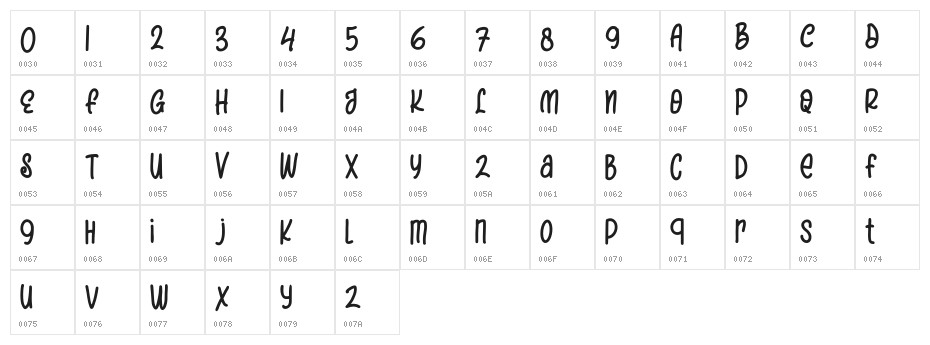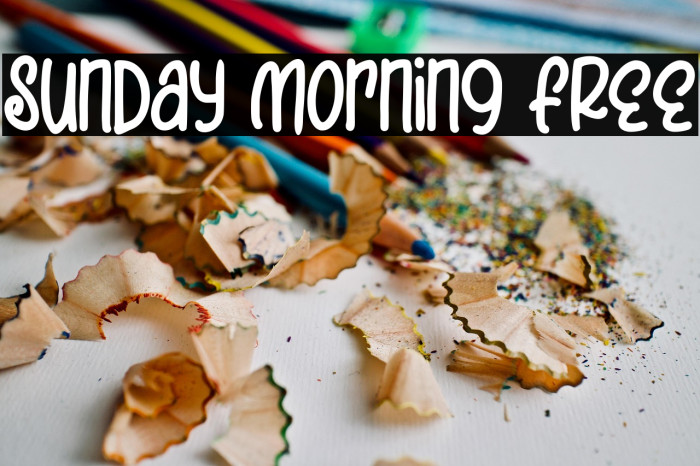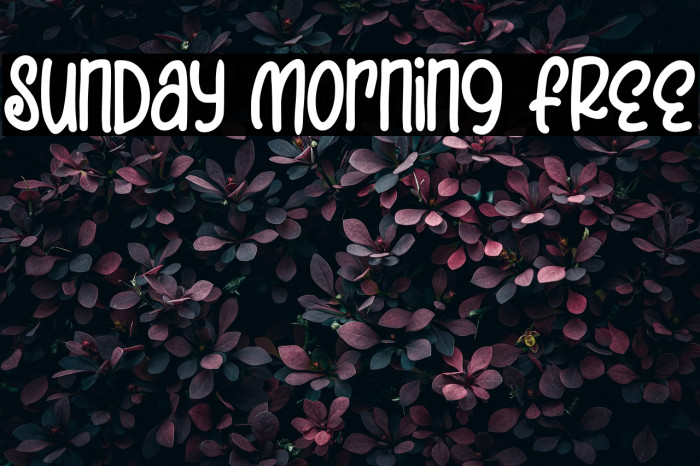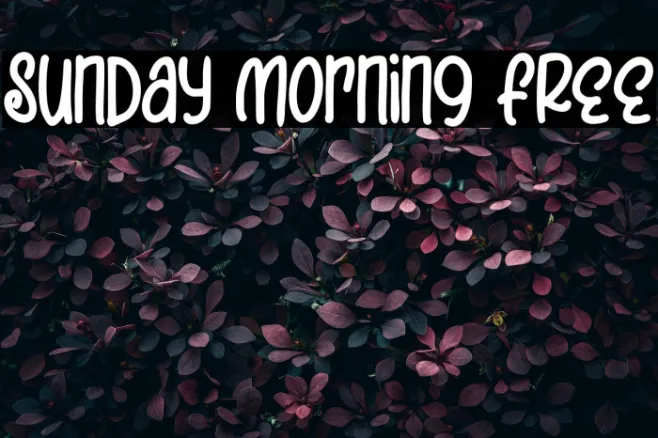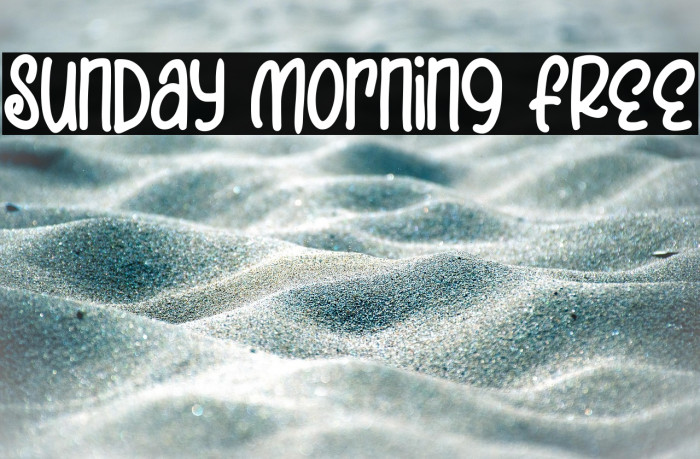
Sunday Morning FREE Font
Sunday Morning FREE Description
This font features a playful and whimsical style with rounded, bold characters that convey a sense of fun and creativity. The letters are slightly elongated with a consistent stroke width, giving them a uniform appearance. The curves are smooth and flowing, adding to the font's friendly and approachable feel. The uppercase and lowercase letters maintain a cohesive look, while the numerals and special characters are designed to match the overall aesthetic. This font is ideal for projects that require a touch of personality and charm.